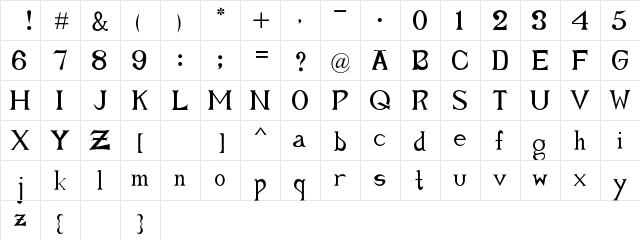
Forget Me Knot Roman
Design Context for Forget Me Knot Typeface
Forget Me Knot is a composed and adaptable typeface that performs quietly and consistently across a wide range of design contexts.
Pro Tip: Use Forget Me Knot in both headline and body roles to test its range before committing to a single application.